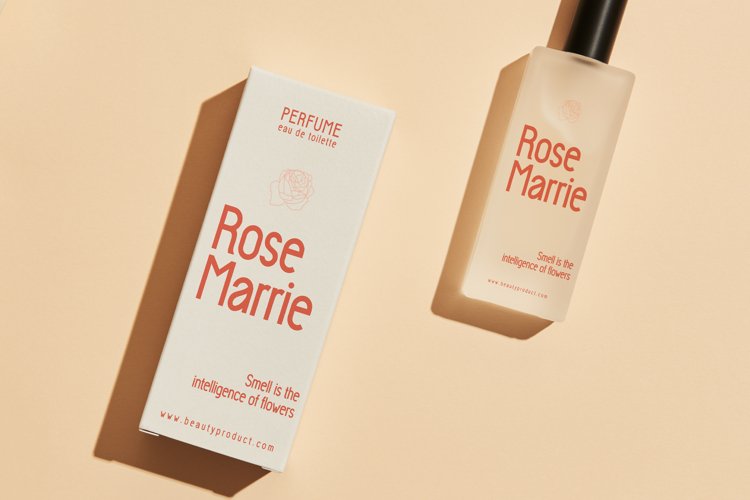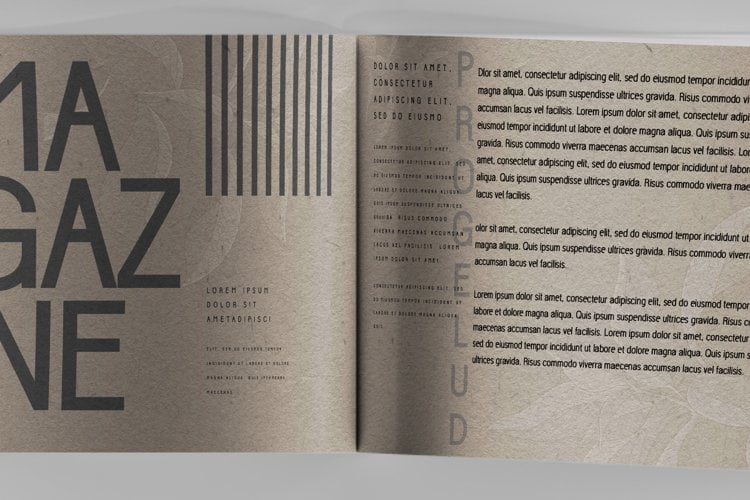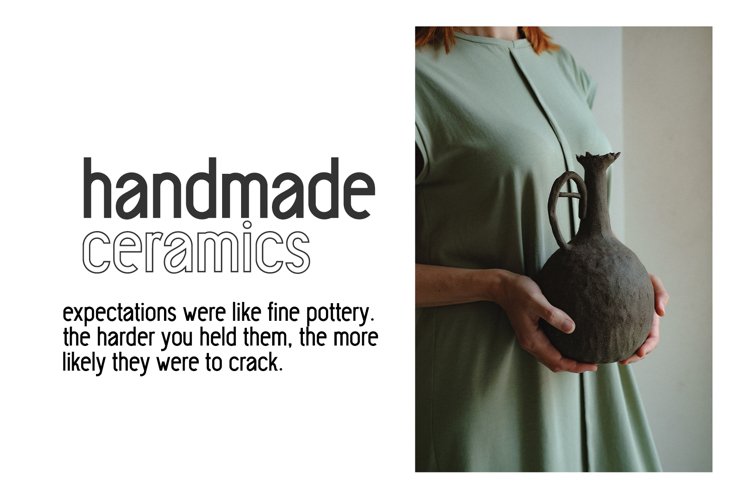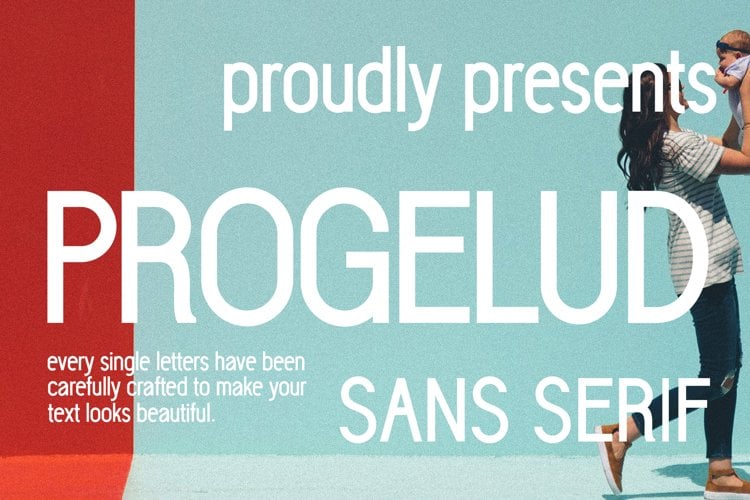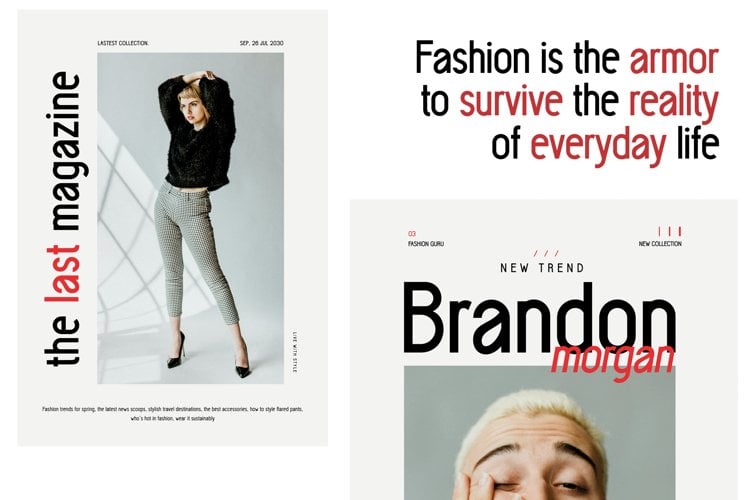
Progelud
Hello guys Proudly presents our font Progelud.
Progelud is mazing sans-serif look attractive and natural!
Every single letters have been carefully crafted to make your text looks beautiful.
It has beautiful and well-balanced characters and as a result, it matches a wide pool of designs.